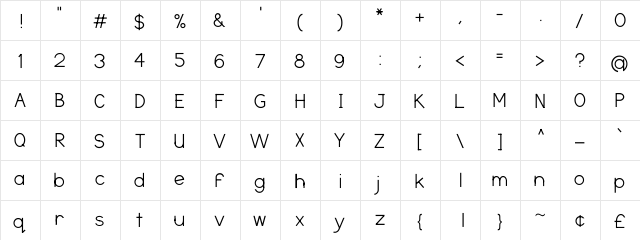
Zuben Regular
| Foundry | Fran's Fonts |
| Designer | Fran Board |
Design Context for Zuben Typeface
Zuben takes a measured approach to typography — its balanced proportions and neutral character make it a reliable workhorse for both digital and print work.